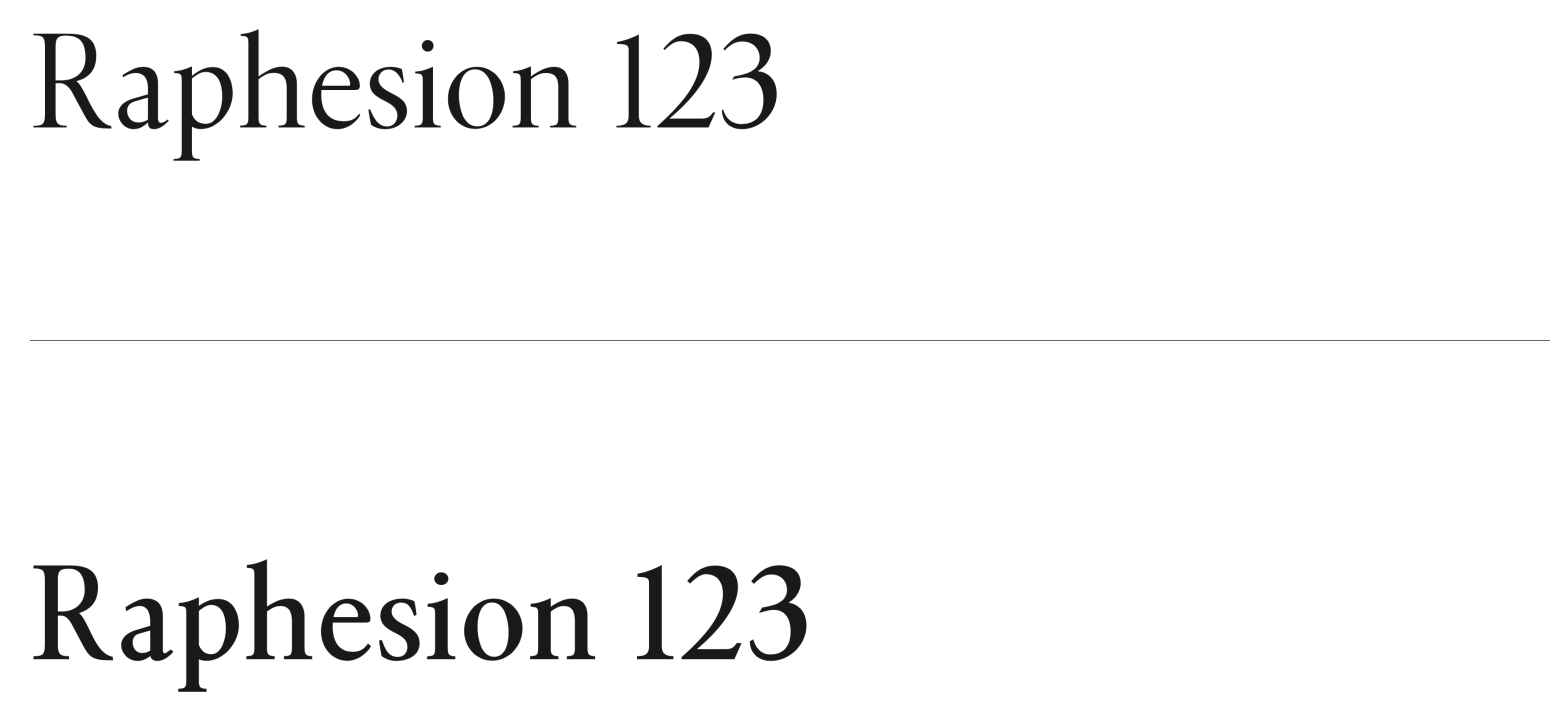
Classification: Transitional Serif (Vox-Atypi)
Variation Axis: Weight (Regular–SemiBold)
Unnamed is a transitional serif typeface designed by a student in the 2024–25 Typeface Design course at FBAUP. Inspired by Minion Pro, it pays homage to late 18th-century Neoclassical serif types while aiming for balance, legibility, and editorial versatility.
Conceived initially in Regular (400) and interpolated to SemiBold (600), the typeface showcases proportional design with thoughtful structure: strokes begin at around 75pt with slightly heavier shoulders (~77pt), and a stress angle of 12°. The terminals are defined by transitional bracketed-shaped serifs, or cartela serifs (?), which anchor the forms and subtly reference the typographic aesthetics of the Enlightenment period.
Designed for use in compact editorial settings, Unnamed focuses on structural consistency and formal precision. It emphasizes the dialogue between form and function, offering a refined typographic voice for long-form reading with a classical touch.